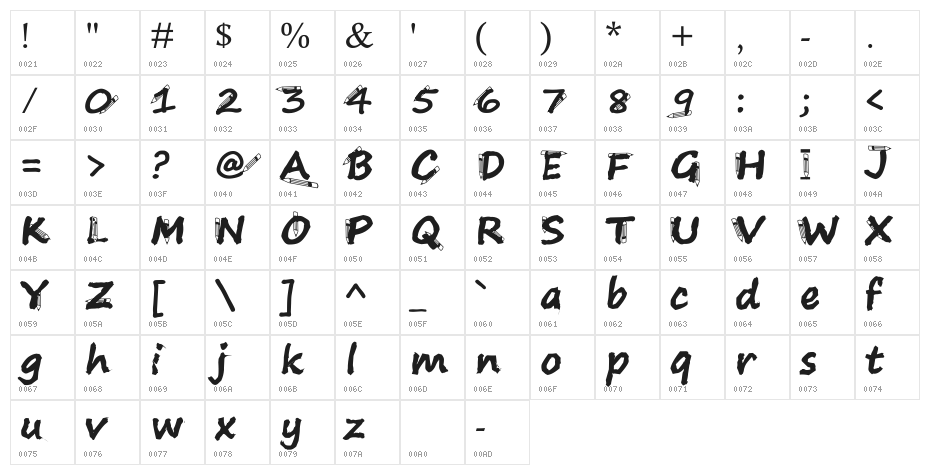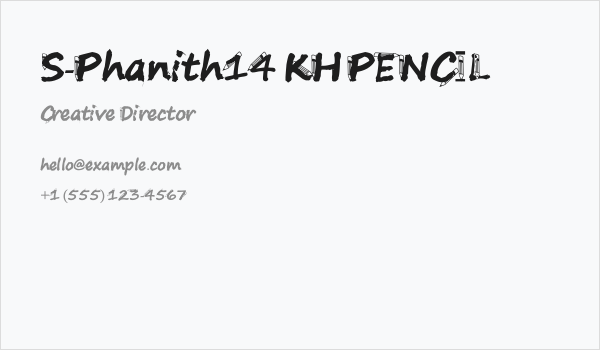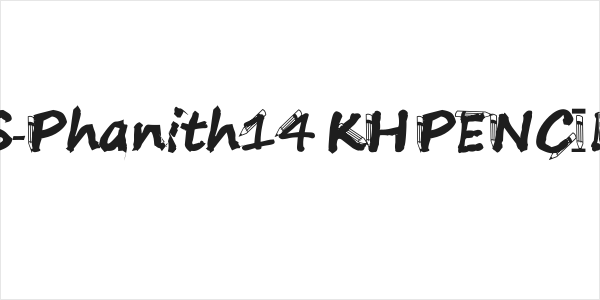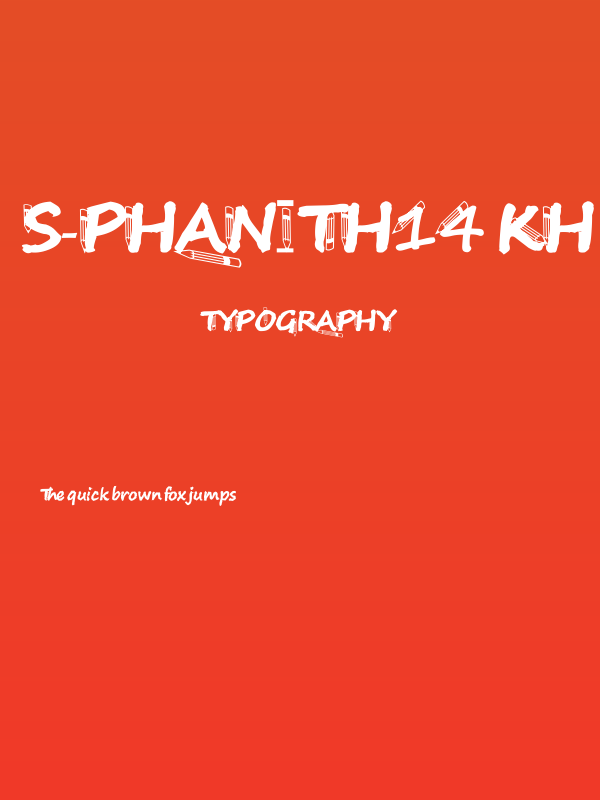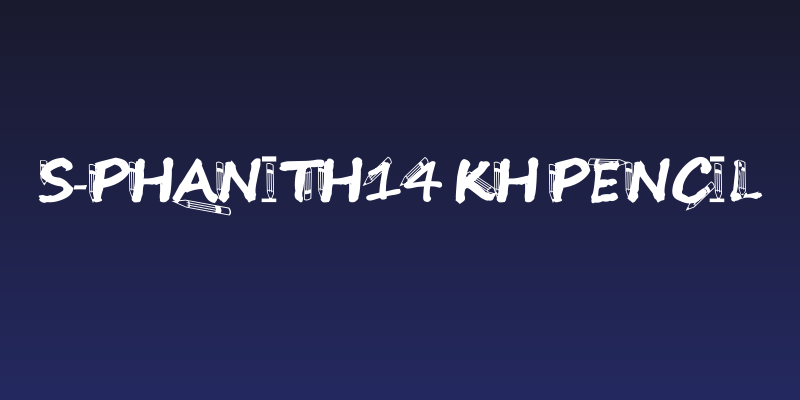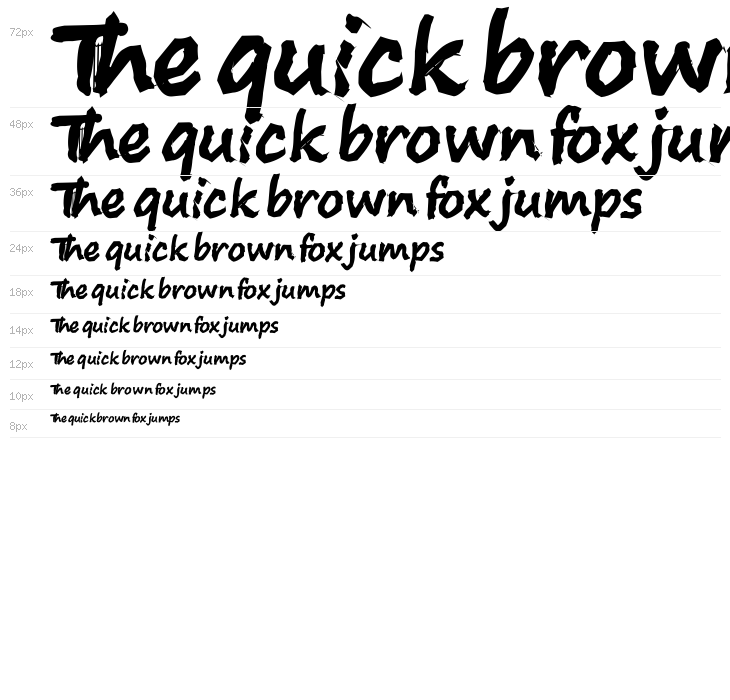
S-Phanith14 KH PENCIL Font
S-Phanith14 KH PENCIL Description
This font features a playful and artistic design, reminiscent of hand-drawn letters with a pencil sketch effect. The characters are bold and dynamic, with a slightly irregular and textured appearance that adds a sense of movement and creativity. The uppercase and lowercase letters maintain a consistent style, with strokes that mimic the look of pencil lines, complete with shading and subtle imperfections. Numbers and special characters are equally expressive, making this font suitable for projects that require a casual and artistic touch.
| Overall Style | Artistic, Playful |
| Use Case | Headlines, Posters, Creative Projects |
| Proposed Projects | Ideal for children's book covers, creative posters, art-themed invitations, and educational materials. |